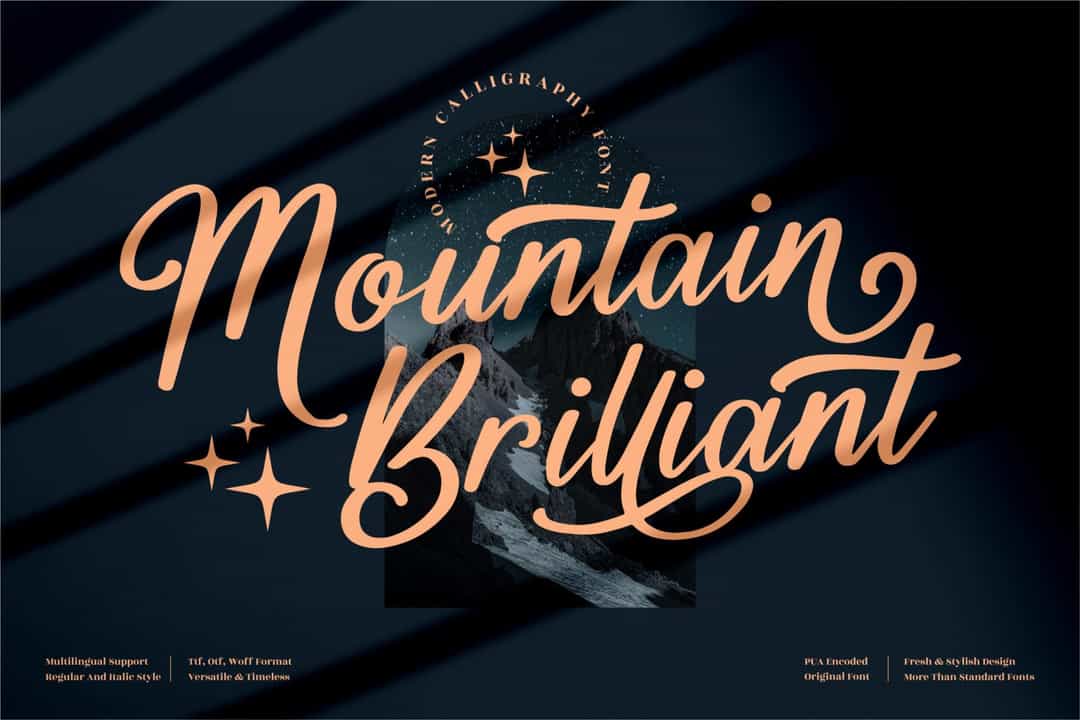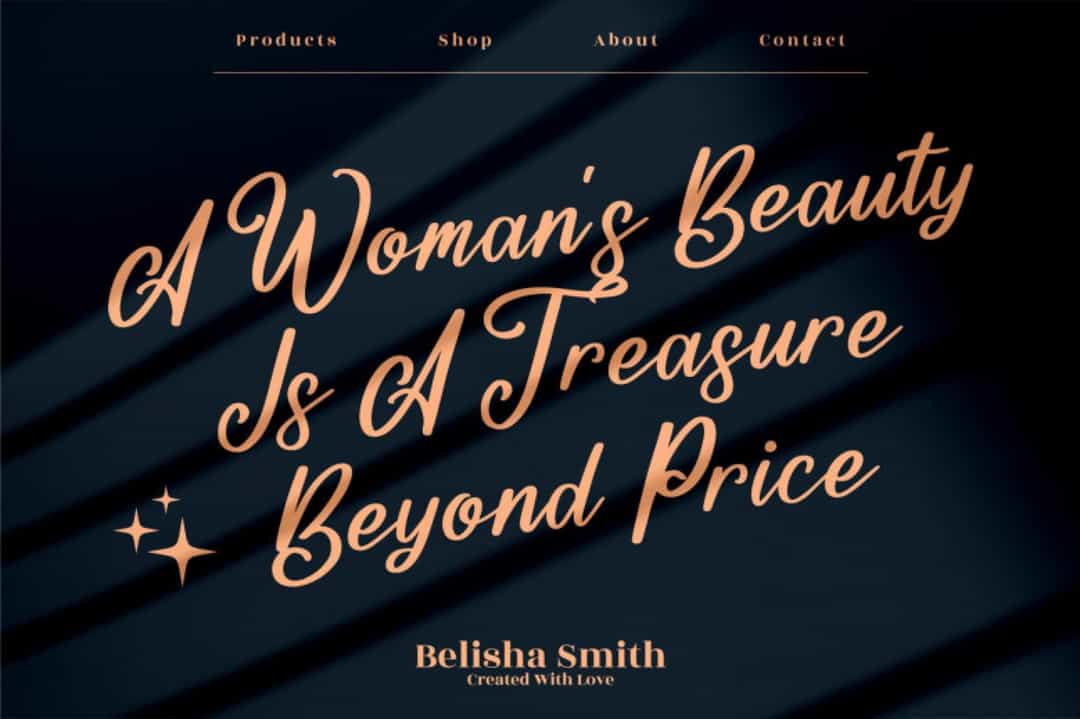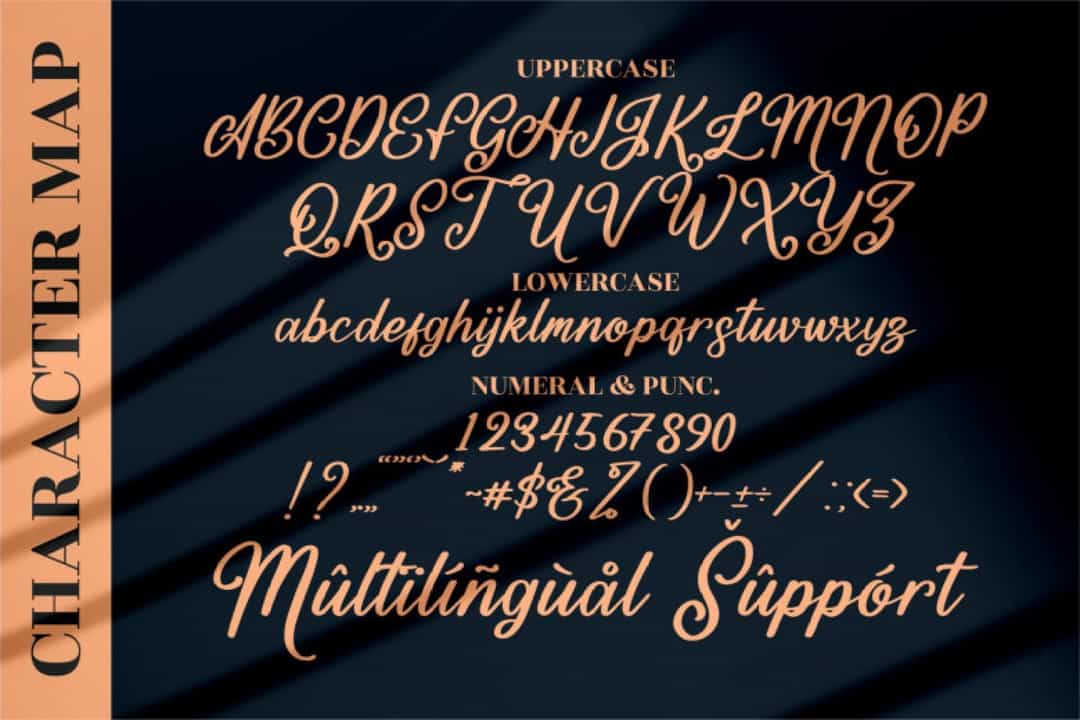
Discover Mountain Brilliant Font, part of the Calligraphy collection—a versatile and unique font perfect for adding a personal touch to your projects. Download it for free and enjoy crafting designs with style, from invitations to social media posts. This font is available exclusively for personal use, giving you the freedom to create without limits. Unlock your creativity with Mountain Brilliant Font today!
Mountain Brilliant is an exquisite and romantic calligraphy font featuring characters that move along its base, adding luxurious sparkle to any design you may create! Furthermore, Mountain Brilliant Font is PUA encoded so that you have access to all its incredible glyphs and ligatures easily!